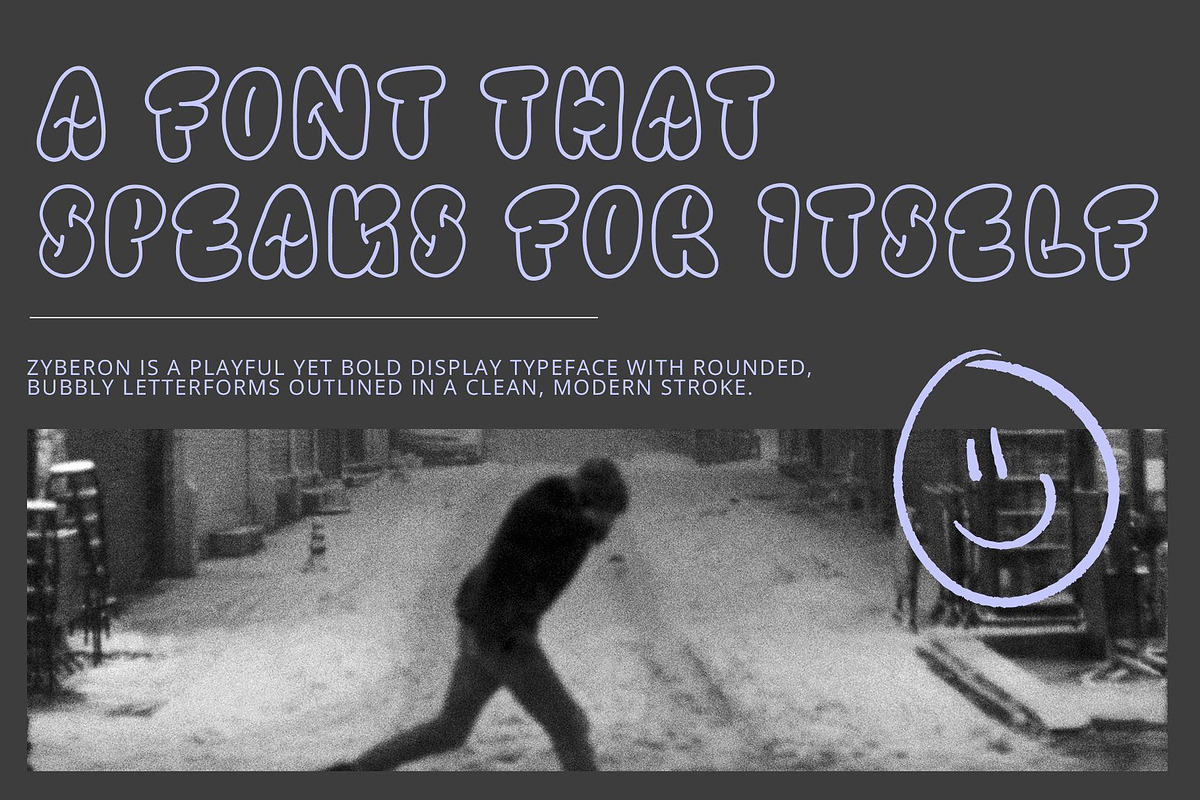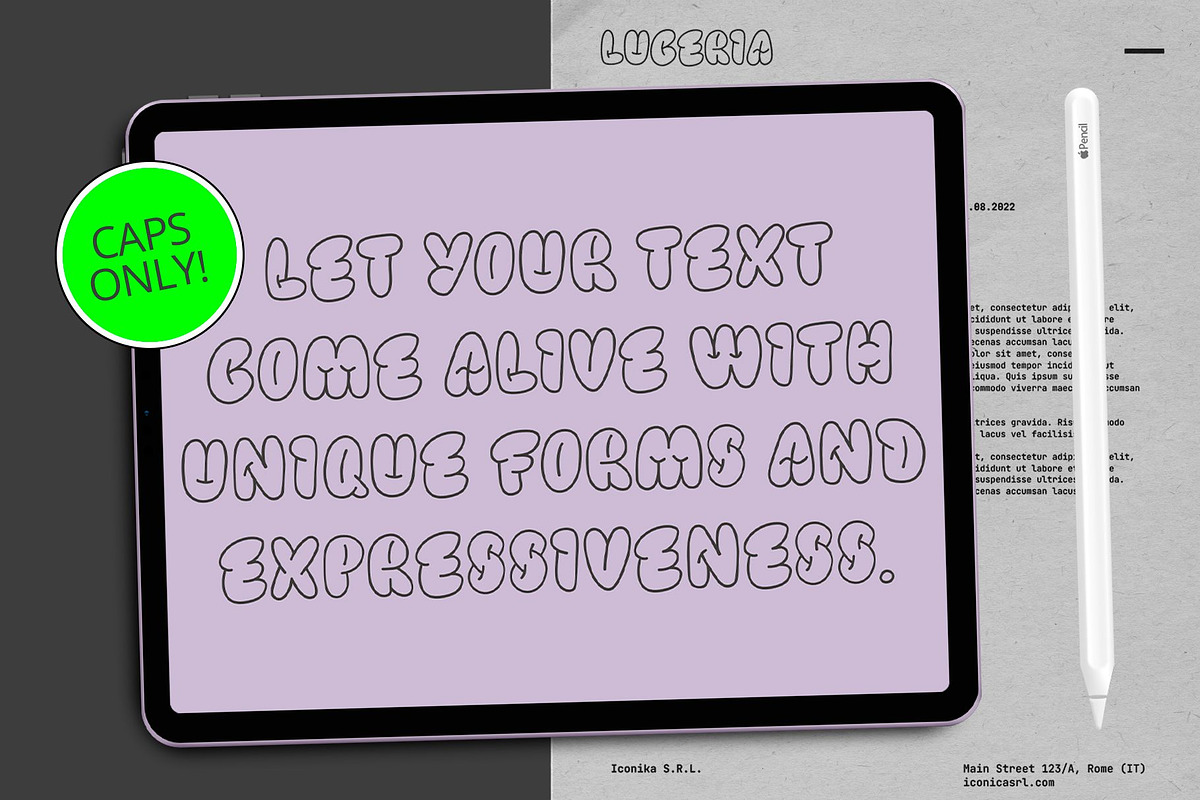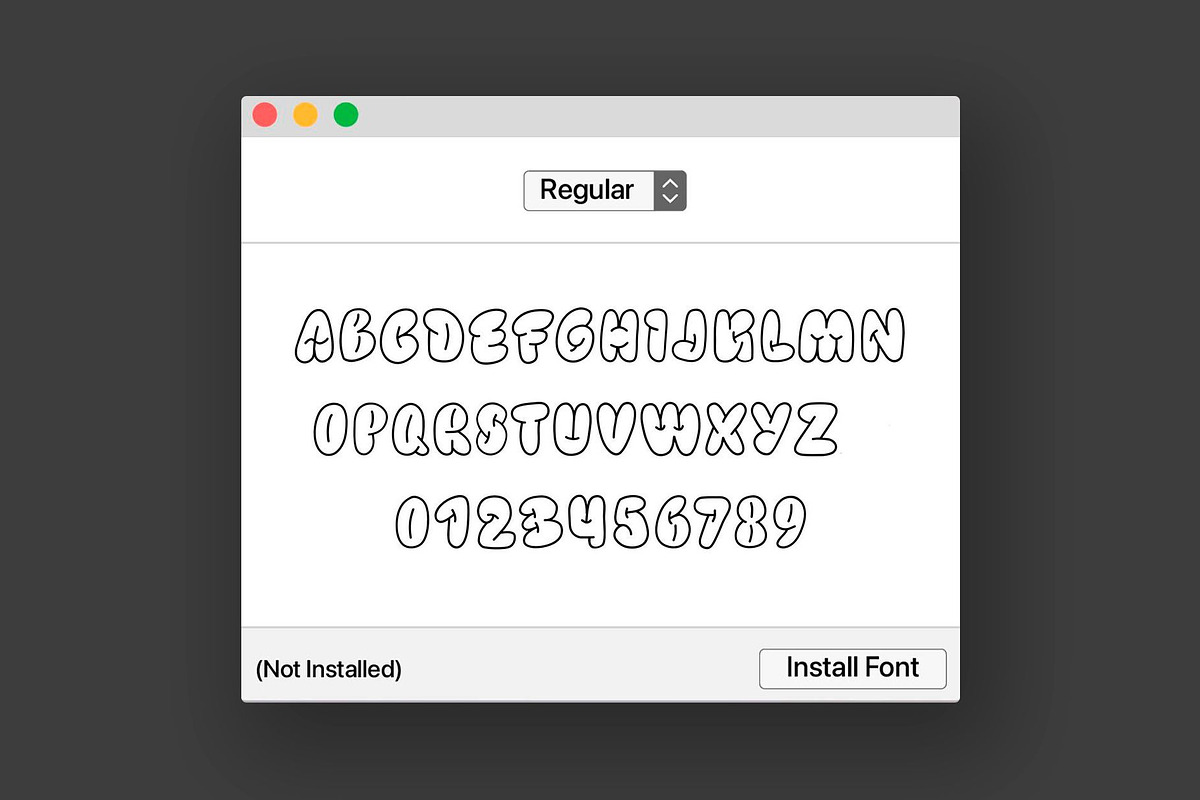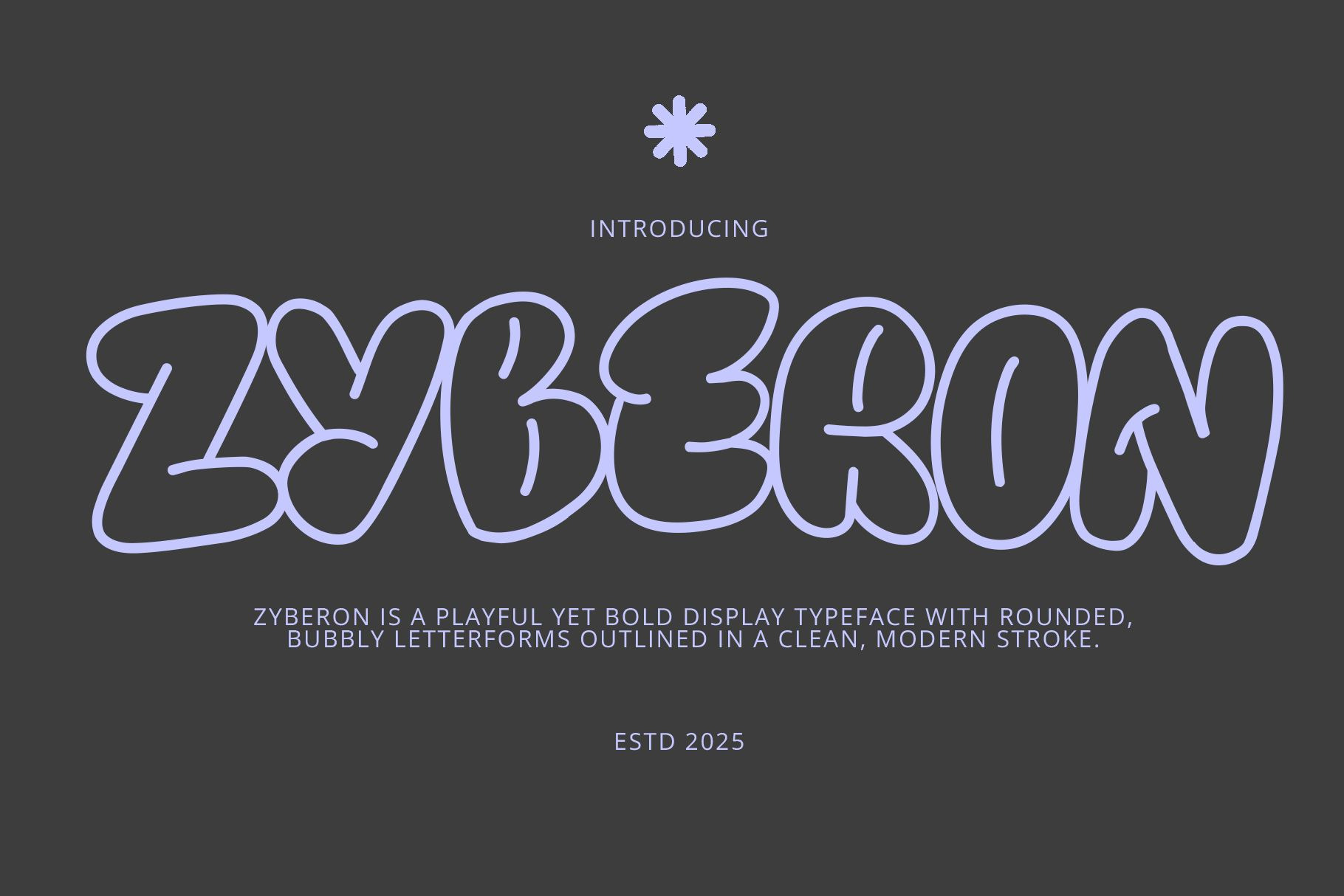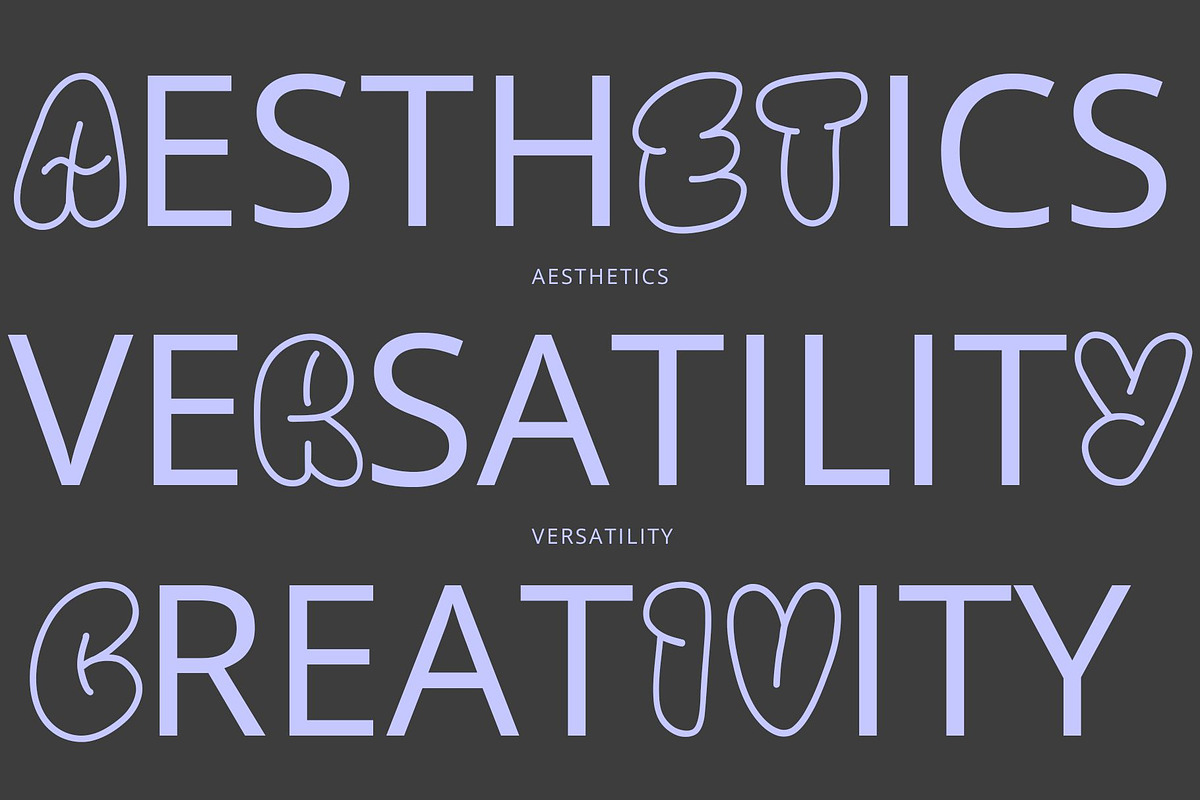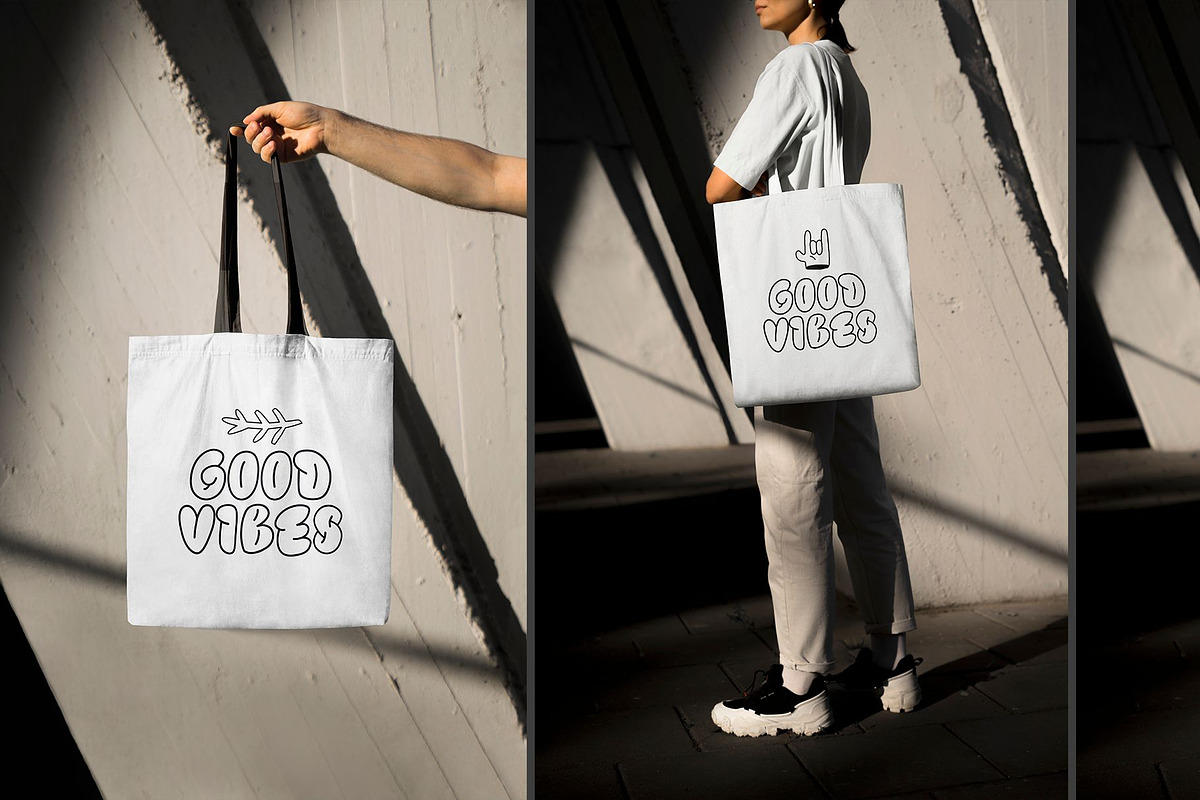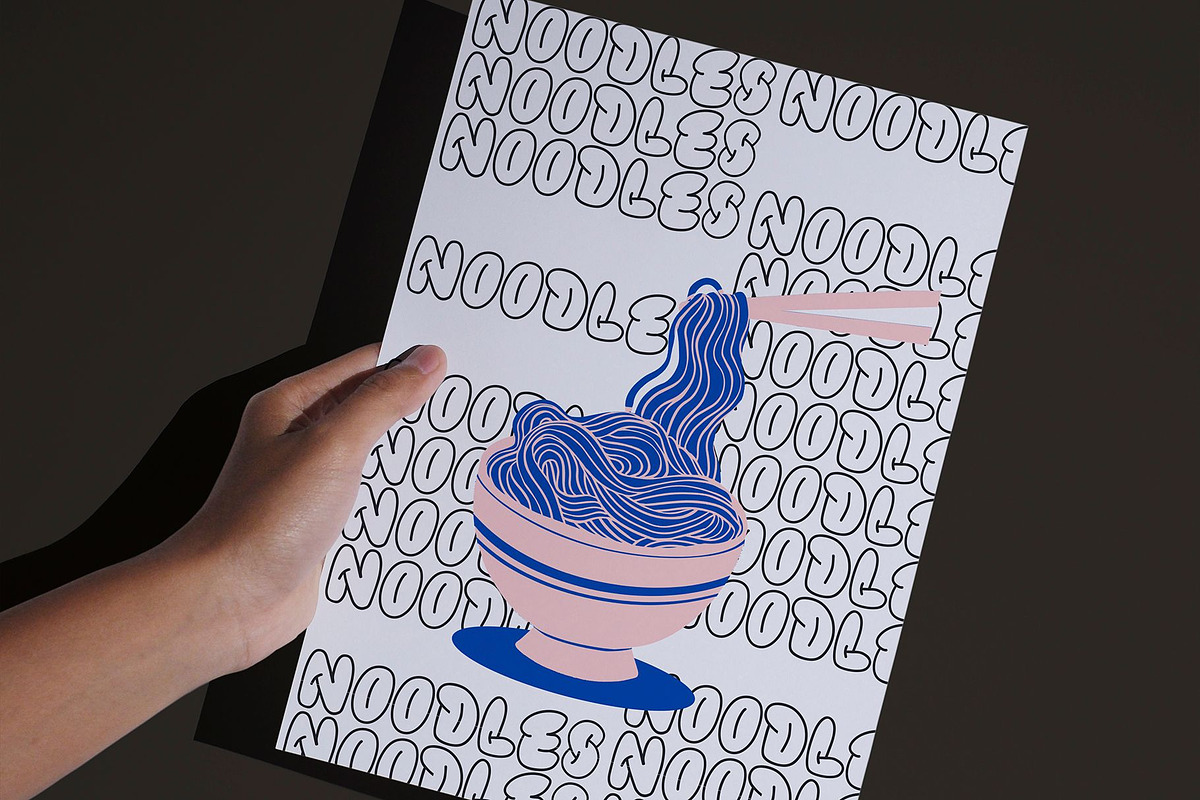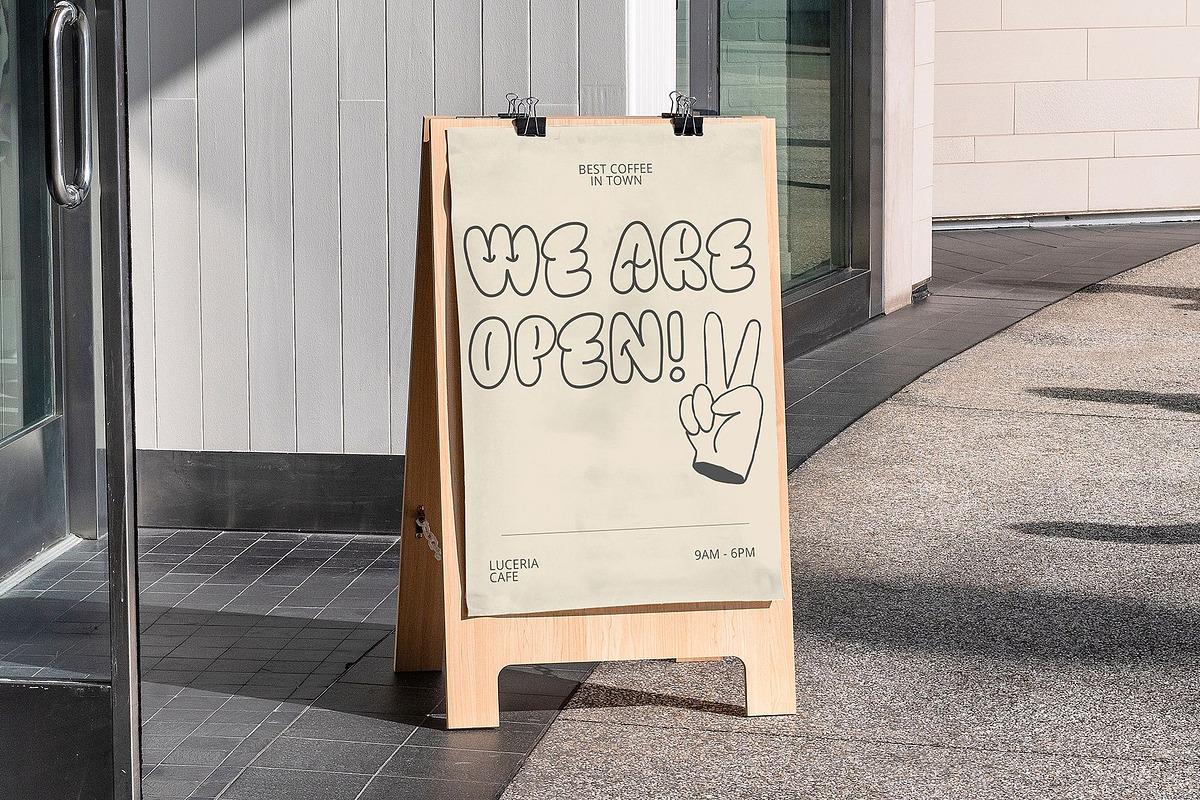
Cute Playful Y2K Handwritting Font
Y2K Handwritten Font – A Retro-Futuristic Throwback
Looking for a font that blends nostalgia with creativity?
The Zyberon is your perfect design companion! This unique font brings a personal, handwritten touch to your projects. Its quirky, expressive style is ideal for posters, social media graphics, branding, and more.
Stand out with this retro-futuristic typeface that combines individuality with Y2K vibes. Perfect for designers craving a nostalgic yet modern twist in their typography!